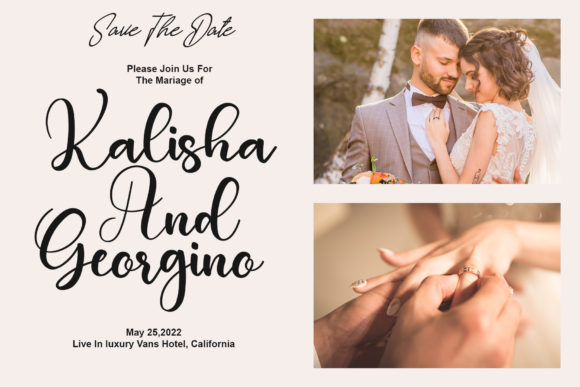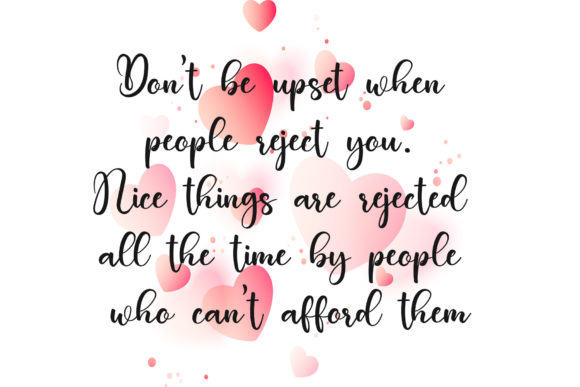
About The Arrow Font
“The Arrow” is a lovely and chic script font designed to add a touch of elegance to your projects. Tailored for a variety of applications, this font is perfect for product packaging, branding projects, magazine covers, social media graphics, wedding materials, or simply for expressing words above different backgrounds.
The lovely and chic nature of “The Arrow” makes it an ideal choice for creating visually appealing designs. Imagine this font gracing product packaging, where its script style adds a touch of sophistication and elevates the overall aesthetic. The chic script form ensures that “The Arrow” stands out with a timeless and refined charm.
In branding projects, “The Arrow” becomes a key element in conveying a chic and elegant image. The font’s versatility allows it to adapt seamlessly to different contexts, enhancing the visual identity of various brands.
For social media graphics or any design that requires a touch of sophistication, “The Arrow” adds a lovely and chic flair. Its script style brings a sense of artistry and creativity, making your content stand out with elegance.
As you incorporate “The Arrow” into your creative projects, appreciate its lovely and chic script font, perfect for enhancing the beauty of your designs. Whether you’re working on print materials or digital media, this font serves as an elegant and versatile choice to convey a sense of sophistication and style.